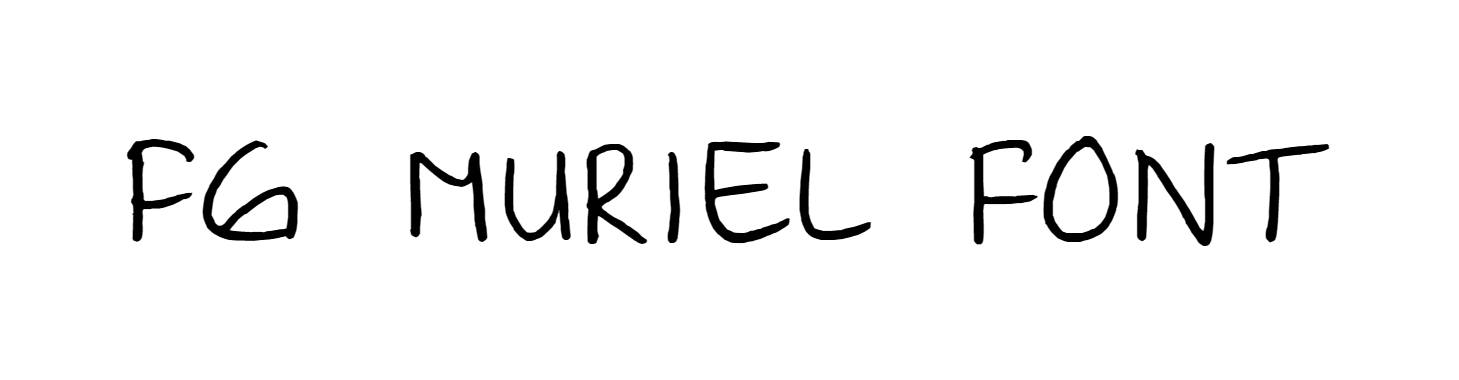
MyFont
MyFont is a handwritten font. The letters have the small wobbles and personality of real handwriting, so your text feels warm instead of printed. You can download it for free and test it with your own words in the preview above.
What You Can Type With MyFont
MyFont has 26 capital and 25 lowercase letters, so a few letters may be missing. Type your exact words in the preview above to check. All ten numbers are included. Common punctuation such as !, ? and @ is included as well. It has 5 accented letters, but not the full set for Spanish or French, so test any non-English words first.
Ligatures and Smart Letters in MyFont
Contextual alternates switch on by themselves: letters change shape to fit their neighbours, so repeated letters don't look copy-pasted. This works automatically in most design apps.
Where MyFont Works Best
MyFont is a natural fit for greeting cards, journal pages and friendly social posts. Set it a bit larger than you would a normal text font. Handwriting styles lose their charm once they get too small to read comfortably.
Does MyFont have ligatures?
MyFont has no standard ligatures, but it has contextual alternates that change letter shapes automatically as you type.
Does MyFont support accented letters?
Partly. MyFont has 5 accented letters, but not the complete set for Spanish, French or German. Type your words in the preview above to check before you use it.